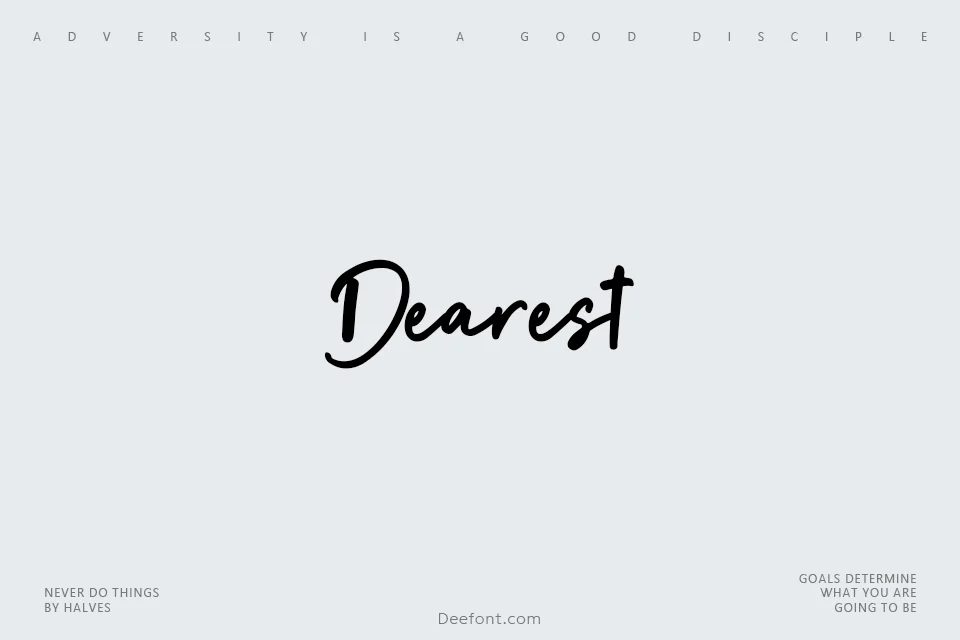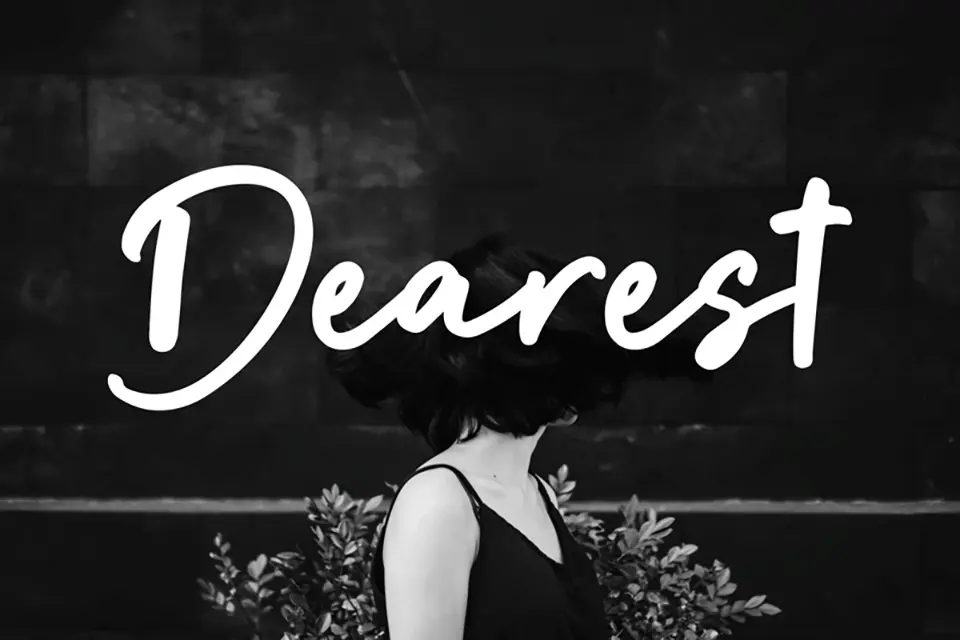
Dearest Font
Dearest is an Elegant script font perfect for crafting, branding, invitation, stationery, wedding designs, social media posts, advertisements, product packaging, product designs, label, photography, watermark, special events, or anything.